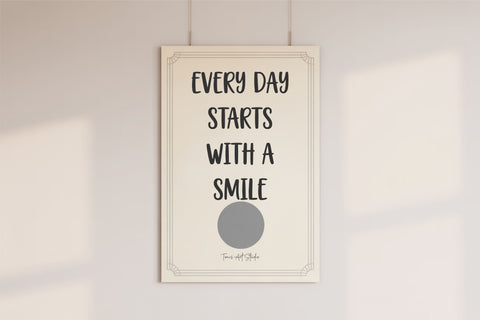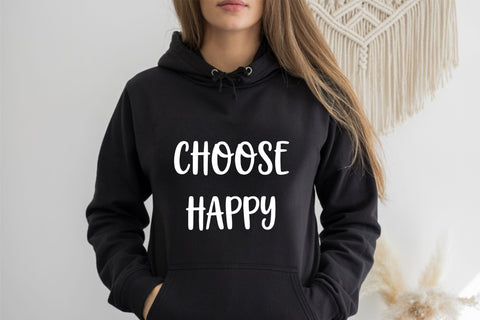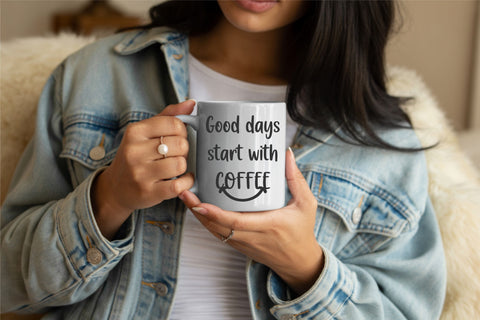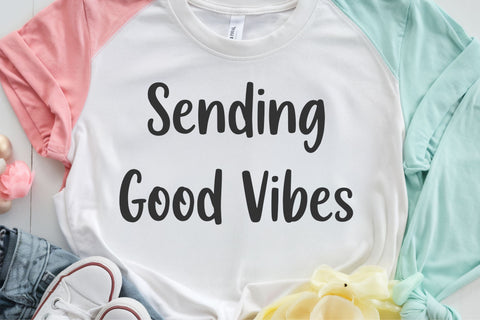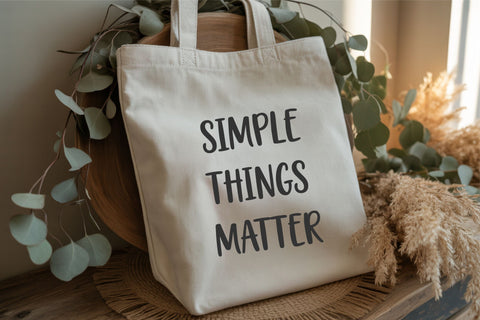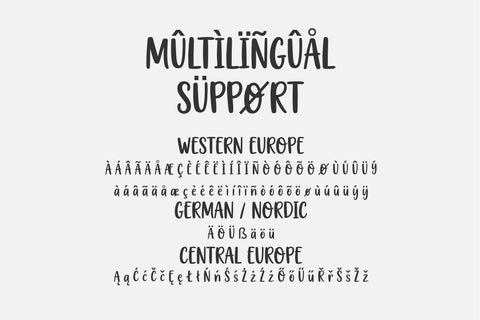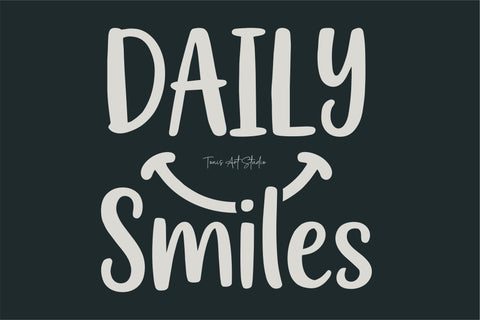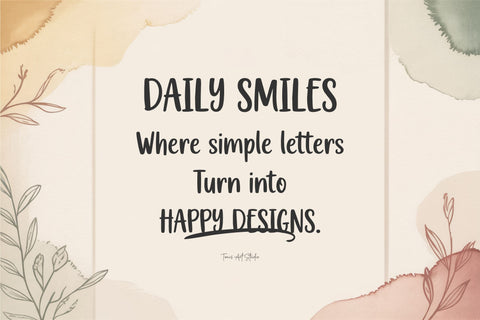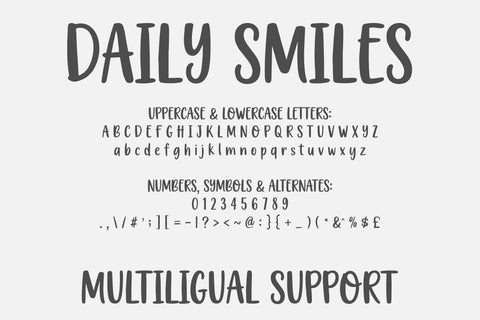
Daily Smiles – Playful Handwritten Font with Friendly Style
Daily Smiles is a playful handwritten font designed to bring warmth, joy, and a friendly feel to modern designs. With soft curves and natural letter flow, this font is perfect for quotes, t-shirts, mugs, tote bags, planners, stickers, classroom projects, branding visuals, social media graphics, and everyday creative work. Its cheerful character makes it ideal for both fun and minimal designs, while remaining easy to read and versatile across many styles. Daily Smiles includes uppercase and lowercase letters, numbers, and symbols, and works smoothly with popular design software such as Canva, Cricut Design Space, Procreate, Adobe Illustrator, Photoshop, and more.
✔️ Full alphabet (A–Z & a–z)
✔️ Numbers (0–9), punctuation & symbols
✔️ Multilingual support (Western, Central European, German & Nordic languages)